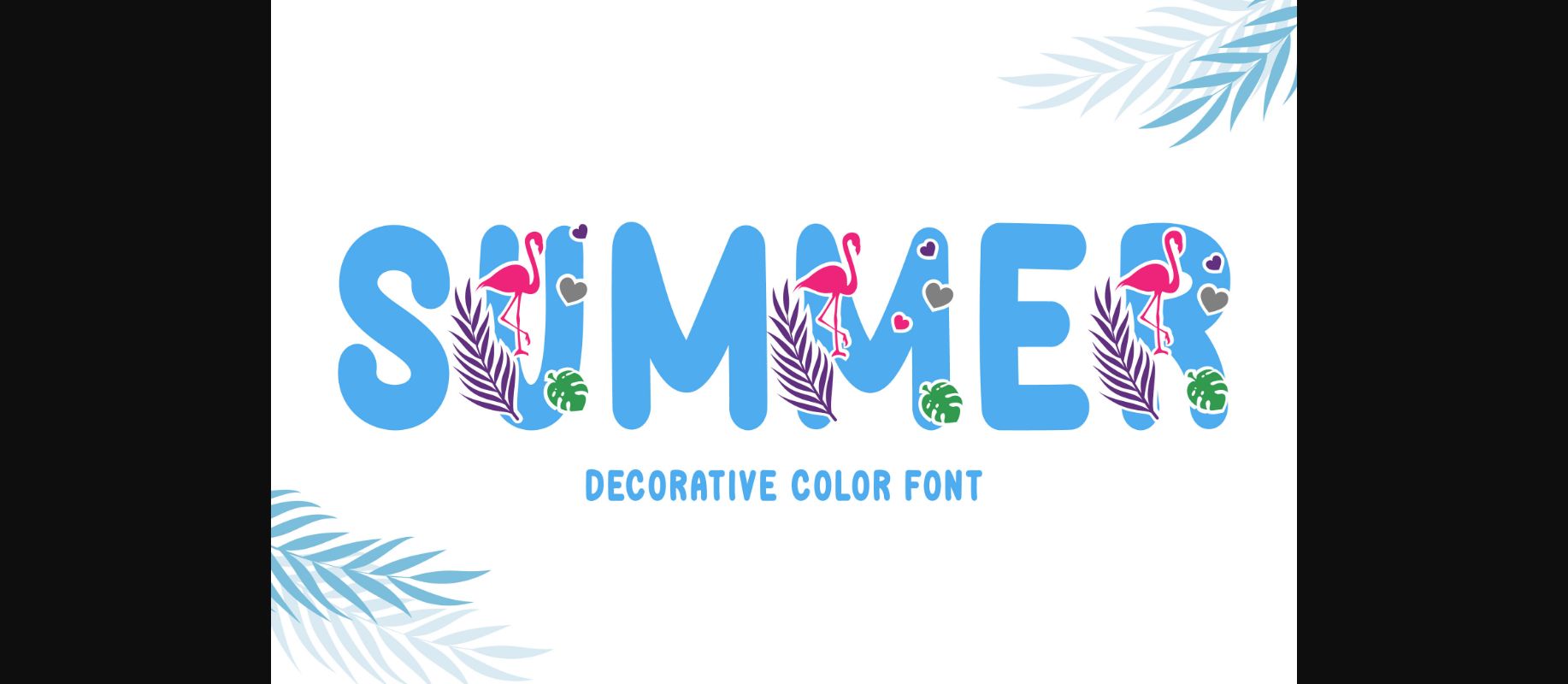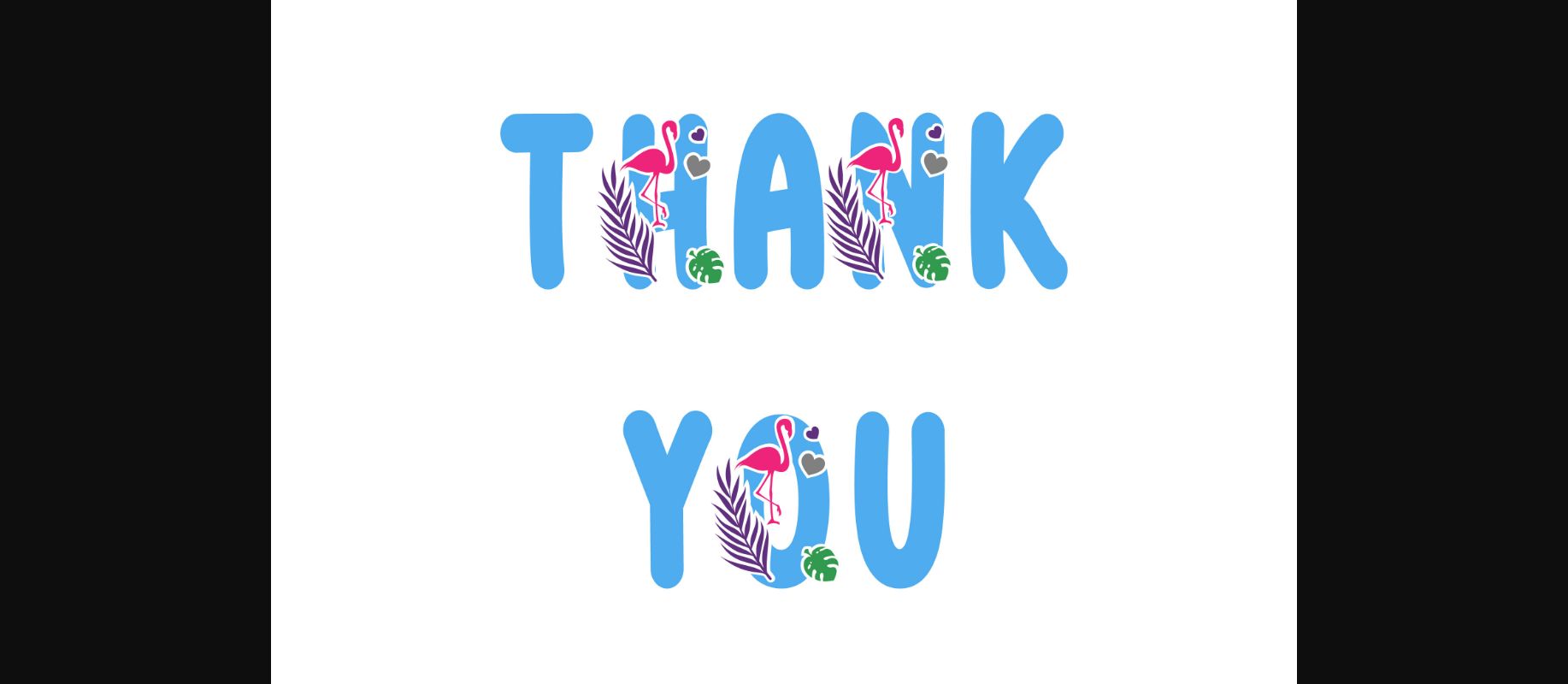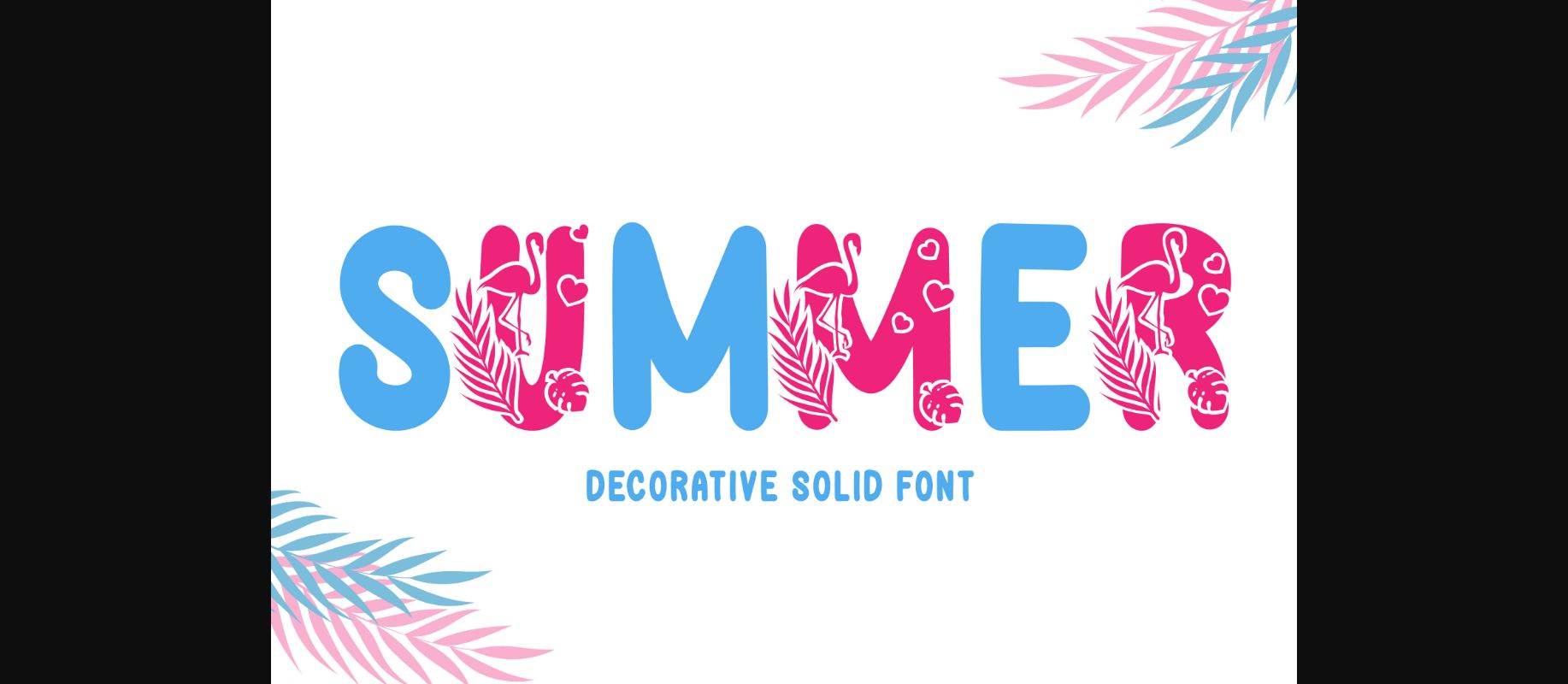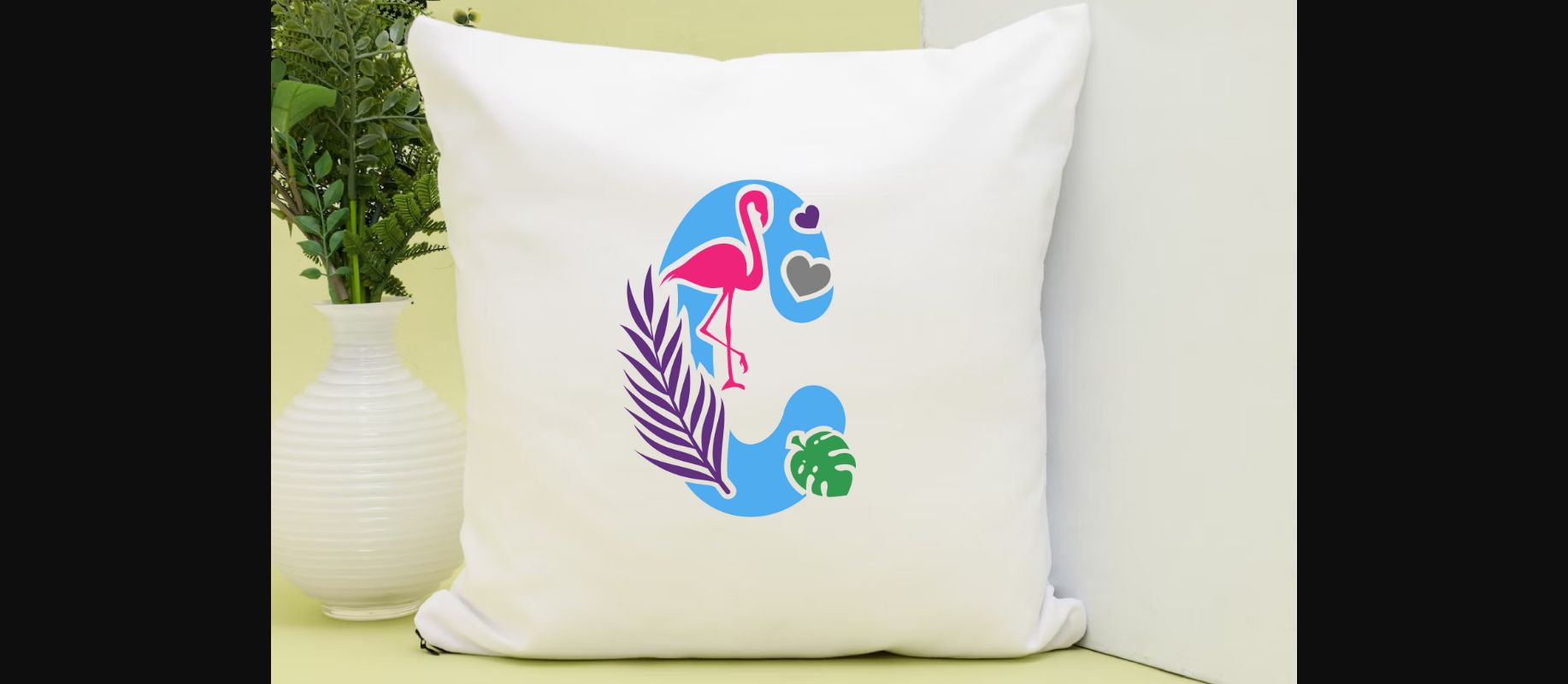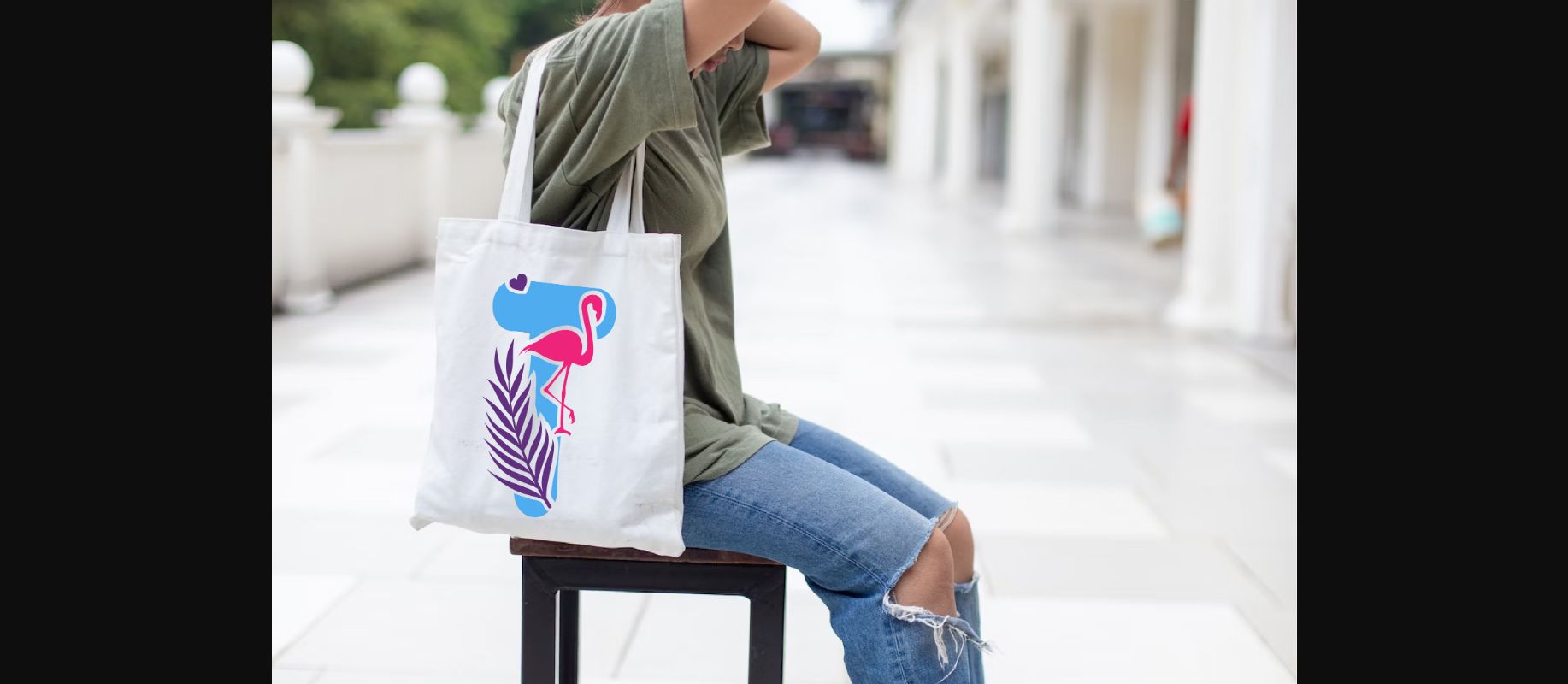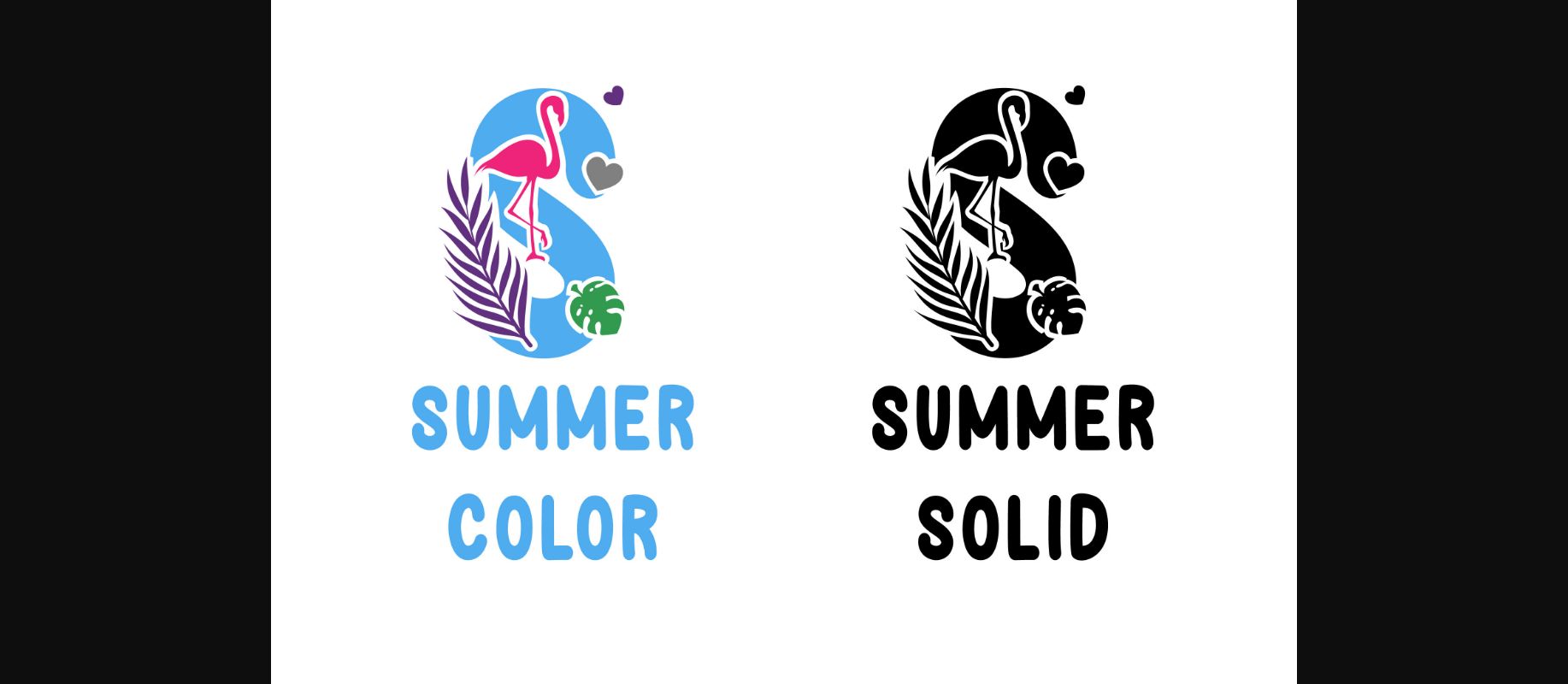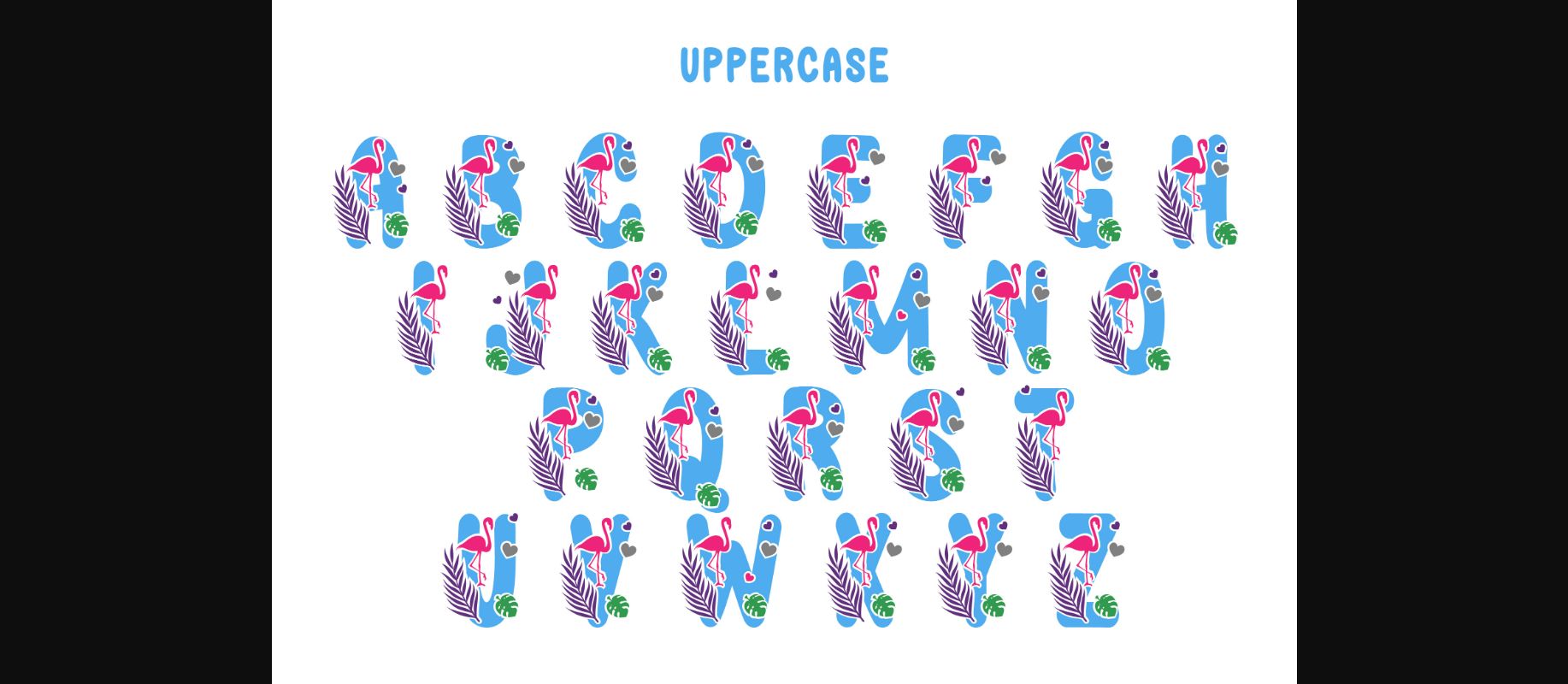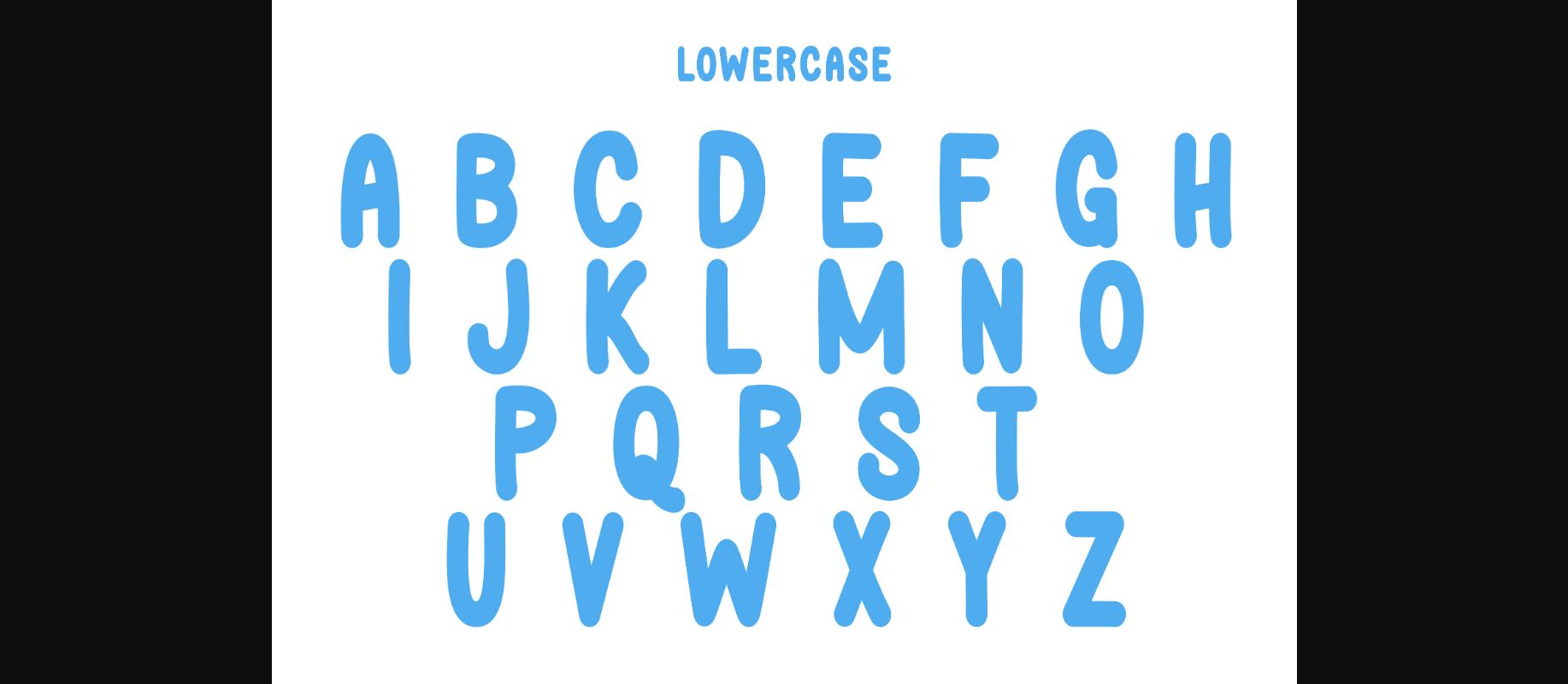
About Summer Font
Summer is a unique and playful font. The font is perfect for creating eye-catching designs for summer events, beach parties, vacation posters, and more. Add it confidently to your projects and you will love the results!